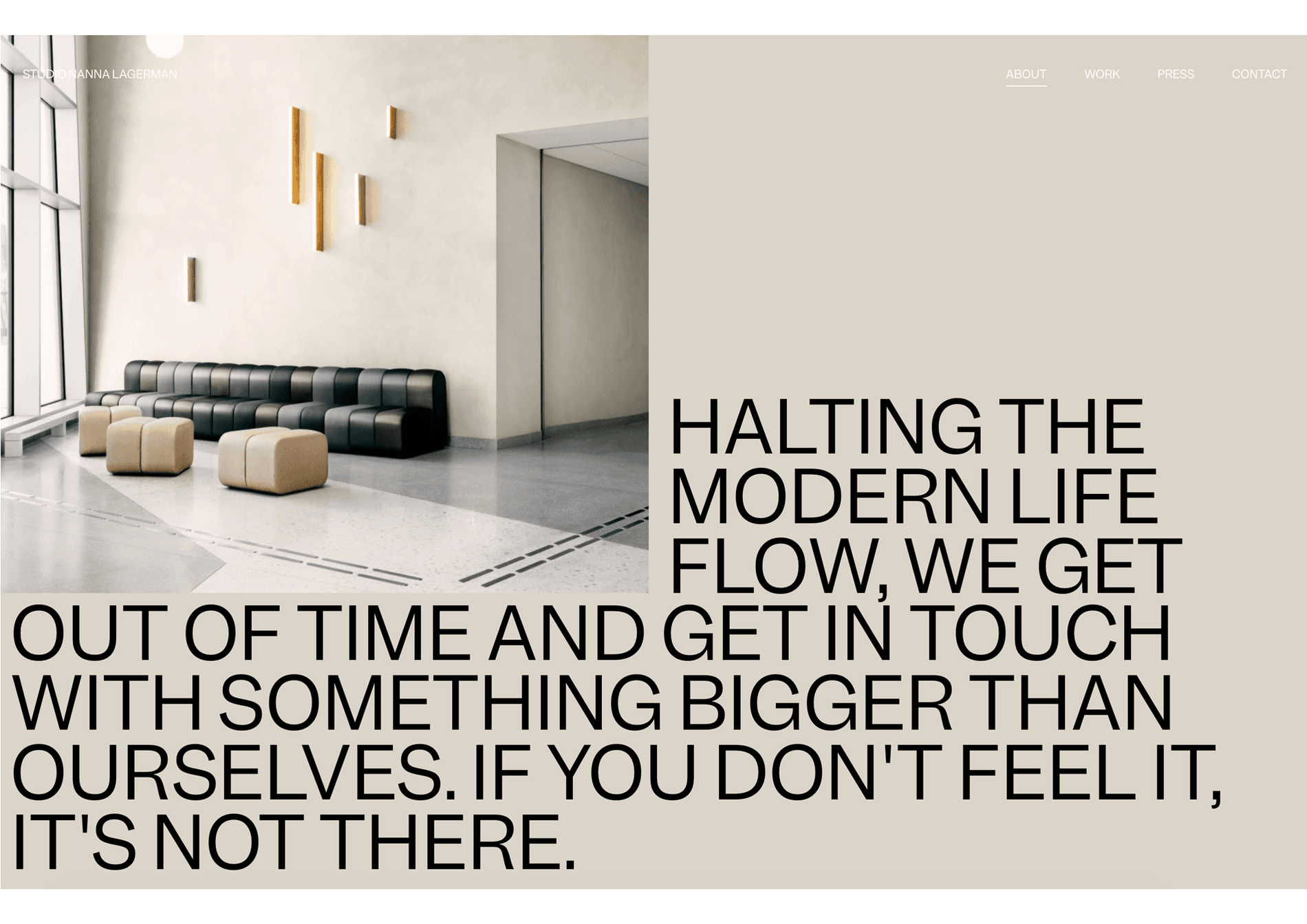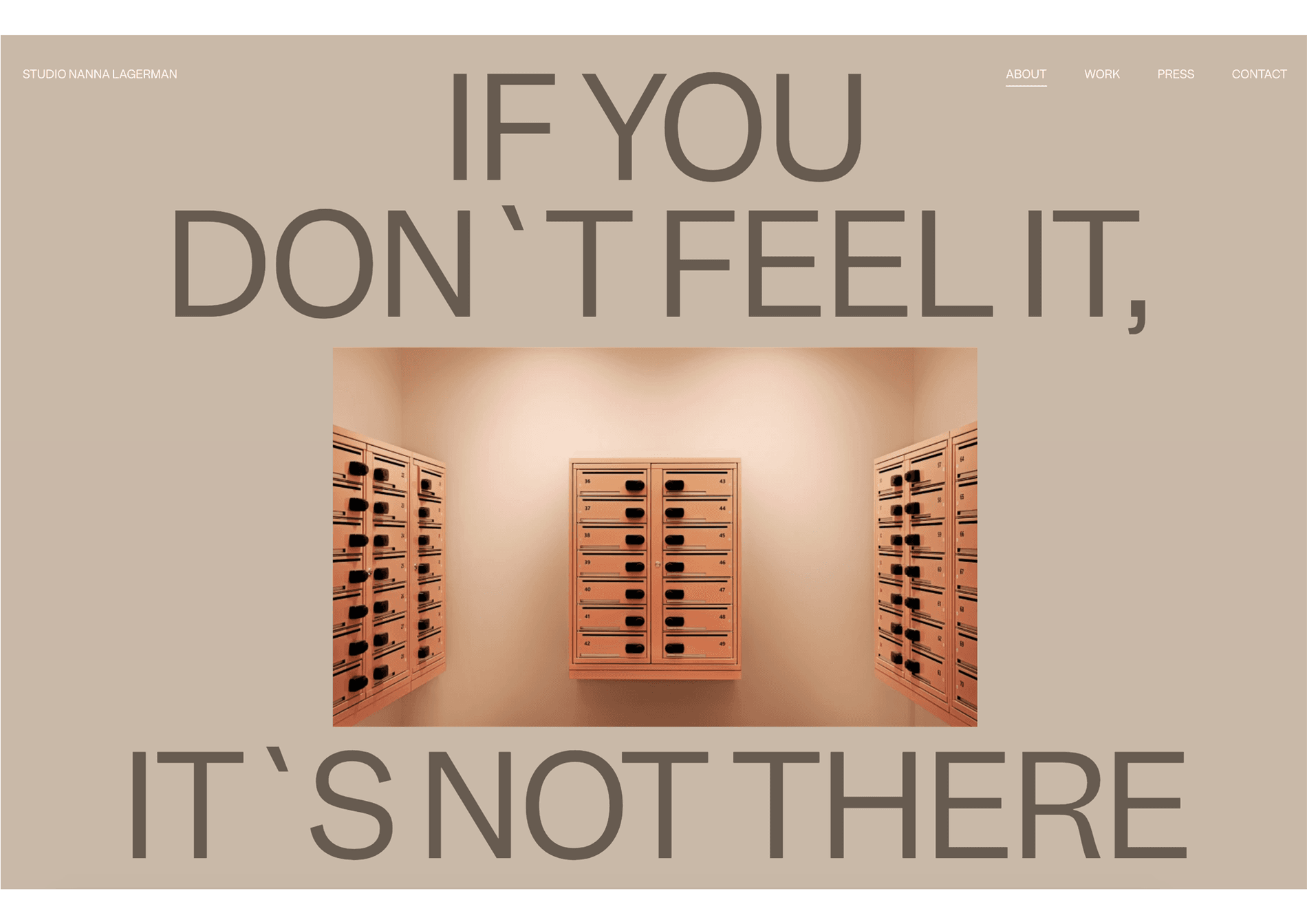
Studio Nanna Lagerman is an award-winning interior design and architecture studio based in Stockholm, Sweden that prides itself in elevating spaces and interiors.
The studio’s portfolio website is fully set in Garnett with all-caps, juxtaposing large headlines and small captions that dramatic contrast and scale. As appropriate for a studio focused on architecture and spaces, the type is formatted as their own typographic structures alongside photographed case studies of homes, sets and interiors.
Typeface: Garnett